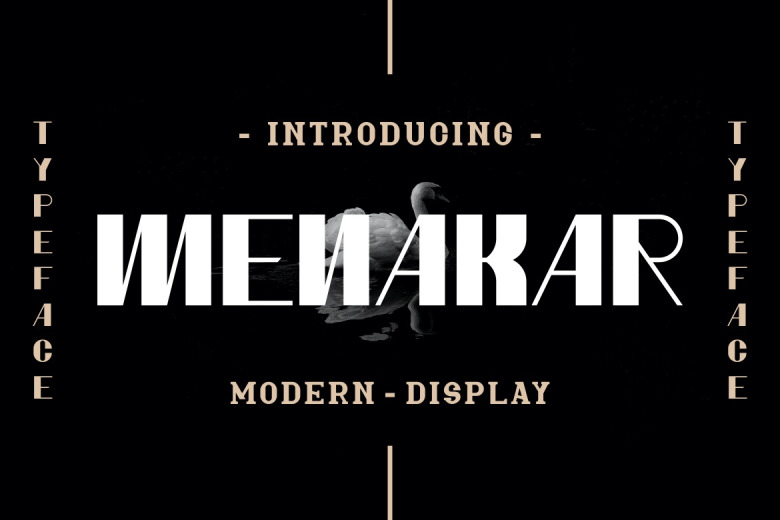
Menakar Font
Menakar is a cool and bold  display font. It’s amazingly fun and fantastic to get this on your projects! Perfect for branding projects, Logo design, Clothing Branding, product packaging, magazine headers, or just as a stylish text overlay to any background image.
Menakar is a cool and bold  display font. It’s amazing and remarkable to have this in your projects! It’s perfect for branding projects, Logo design, Clothing Branding, product packaging, magazine headers, and more.
Menakar Display Font